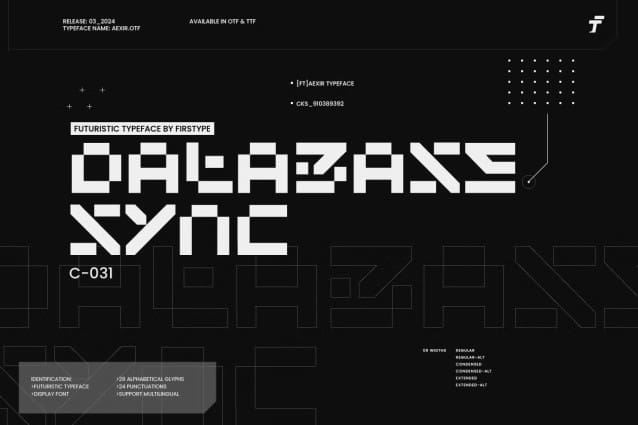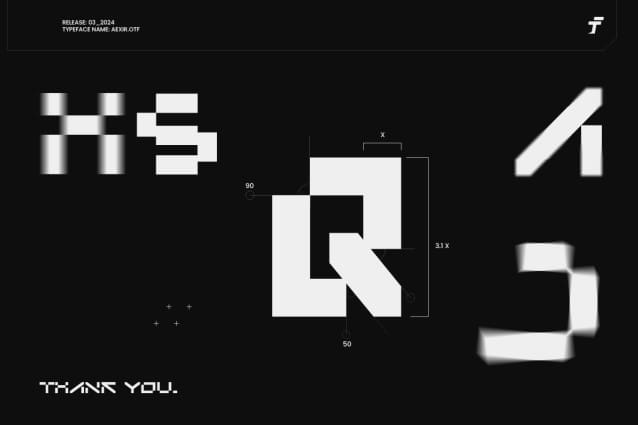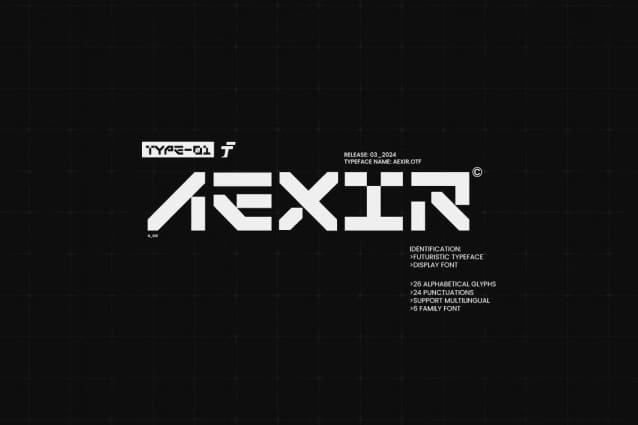
Aexir Font
Aexir Font, a font that epitomizes the essence of futurism and modernity. With its sleek lines and bold design, Aexir offers a glimpse into a world where technology meets artistry, making it the perfect choice for those seeking a font that breaks boundaries.
Featuring six distinct styles, including regular, condensed, and extended variations, Aexir provides unparalleled versatility for your design endeavors. Each style comes with a range of alternative typefaces, allowing you to customize and experiment to your heart’s content.
Whether you’re designing for digital platforms or print media, Aexir Font is your ultimate companion. Its futuristic charm and cyberpunk-inspired elements add a touch of innovation to any project, making it particularly well-suited for gaming graphics, tech-related content, and futuristic themes.